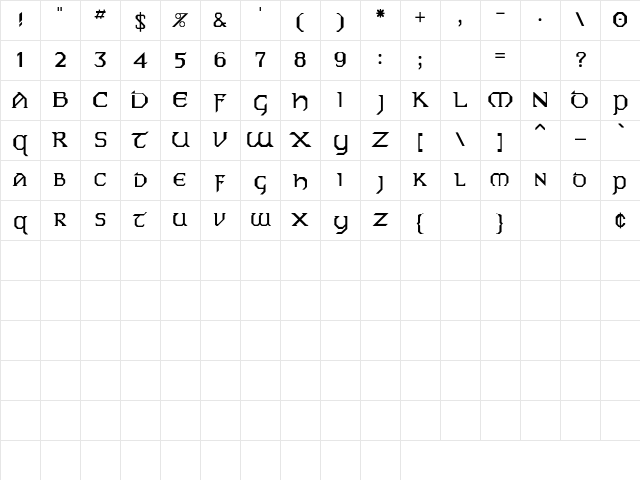
Eire Regular
Complete Eire Regular glyph index. Displaying only characters natively supported by Eire Regular font.
Design Context for Eire
Eire is a composed and adaptable typeface that performs quietly and consistently across a wide range of design contexts.